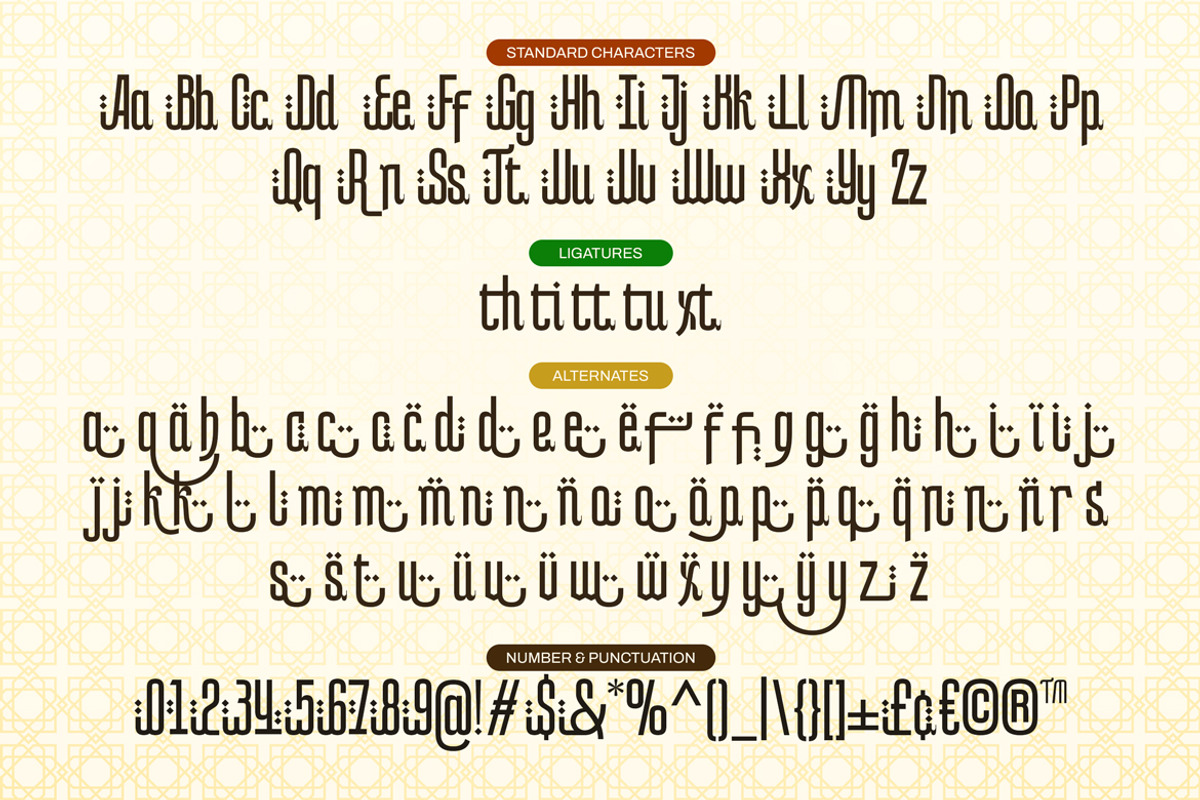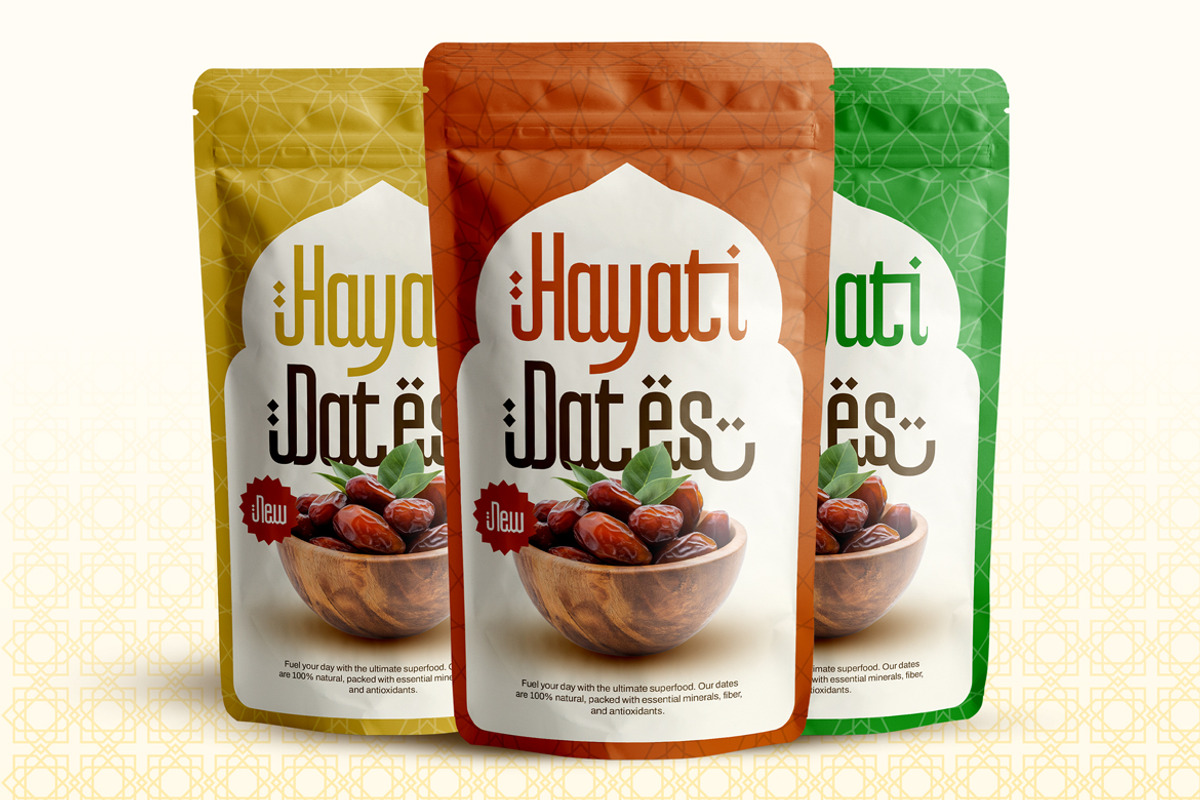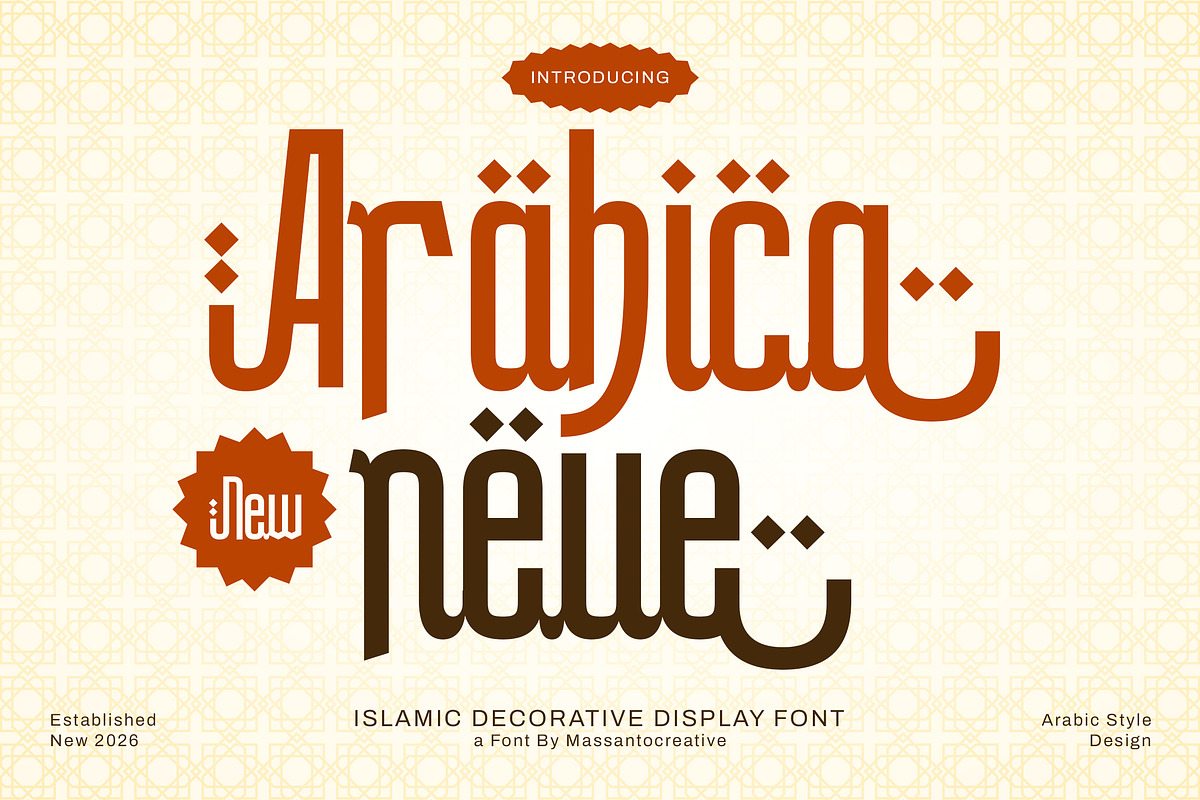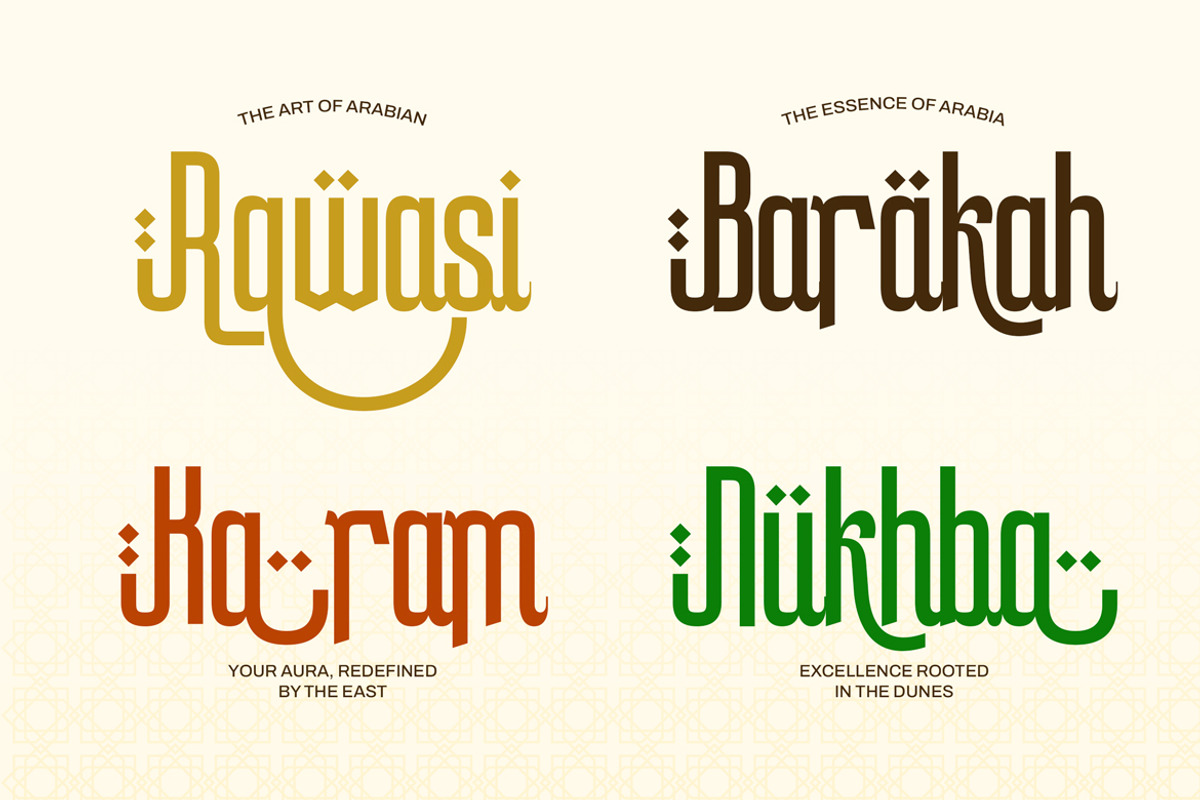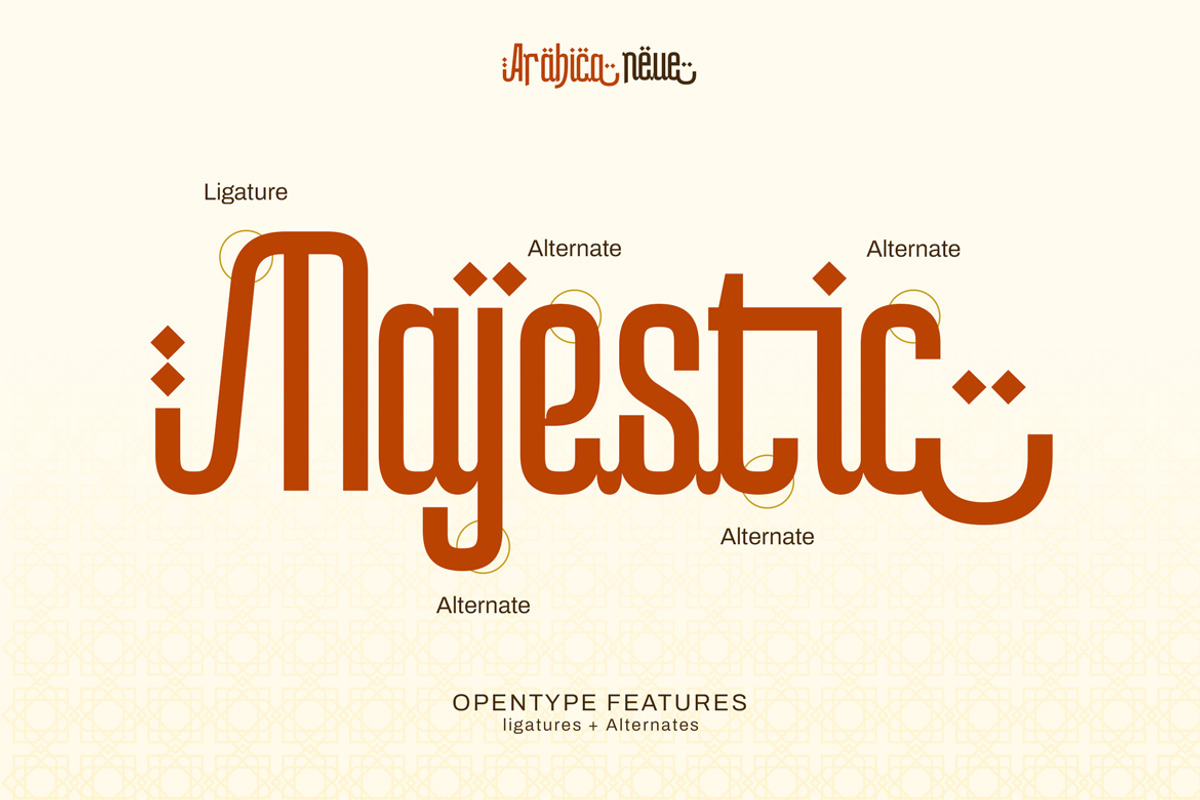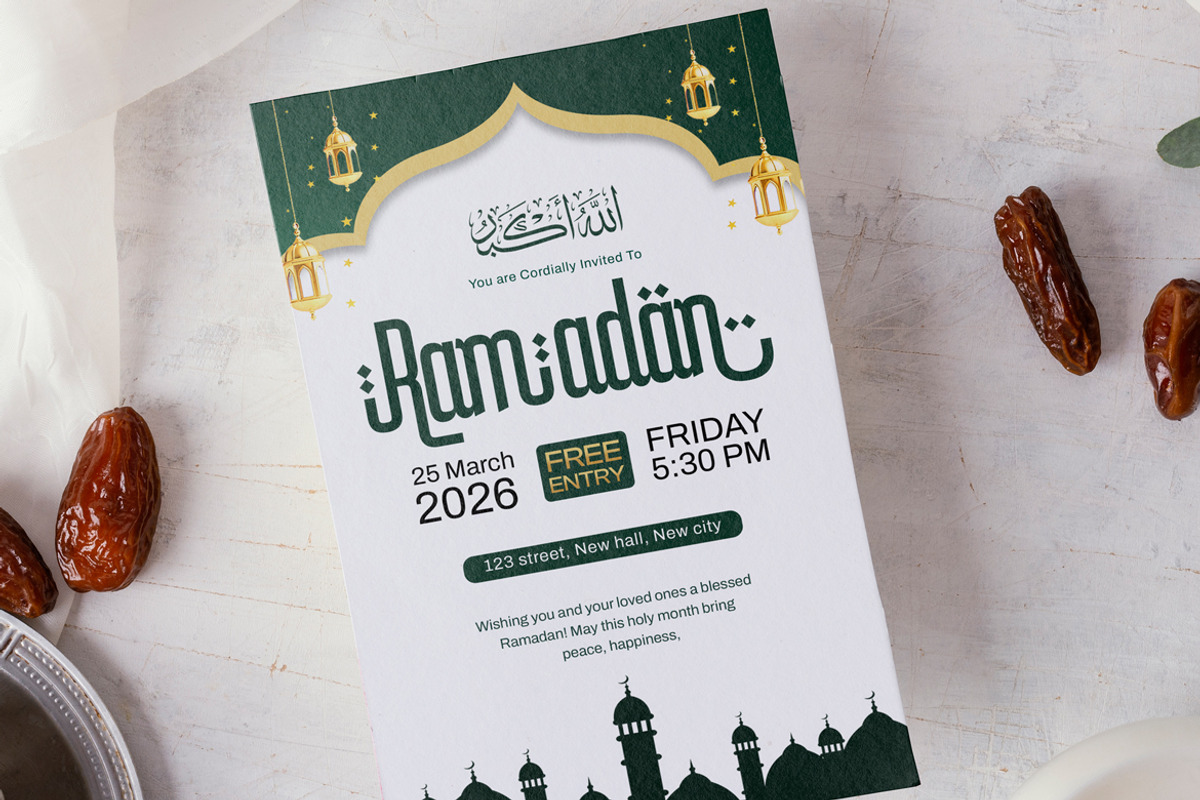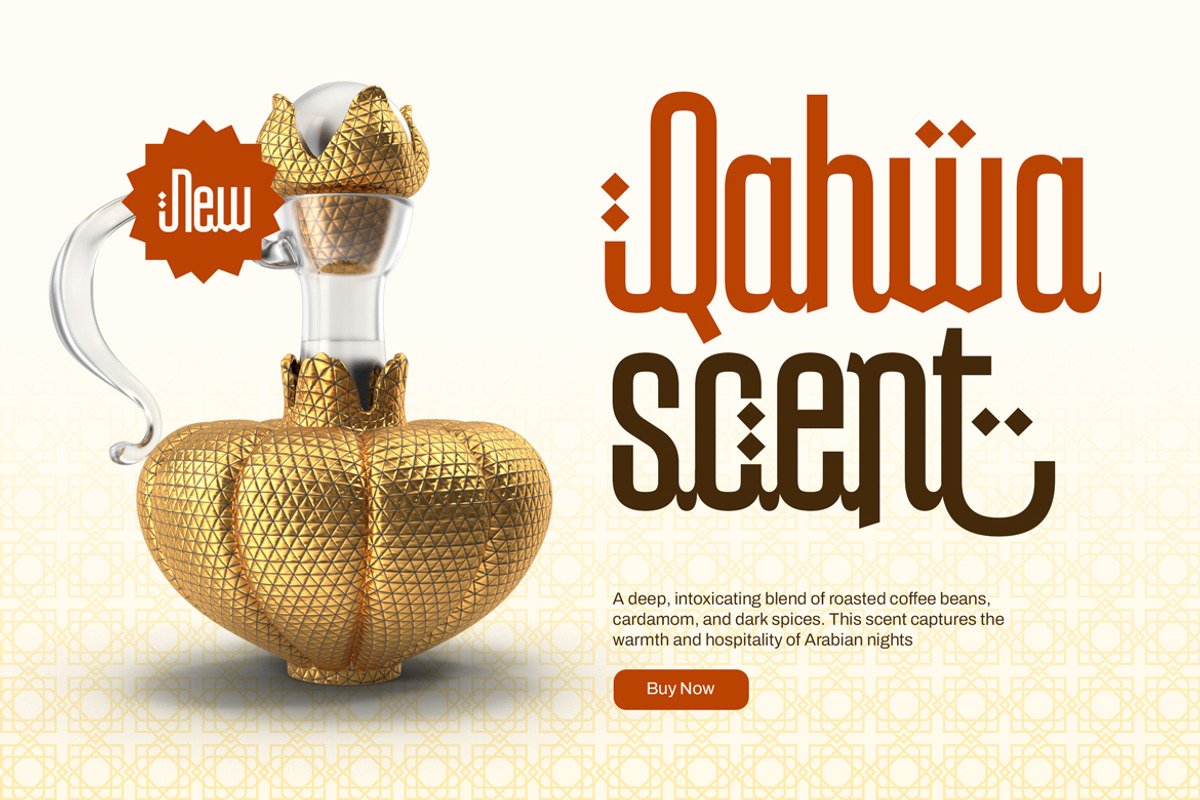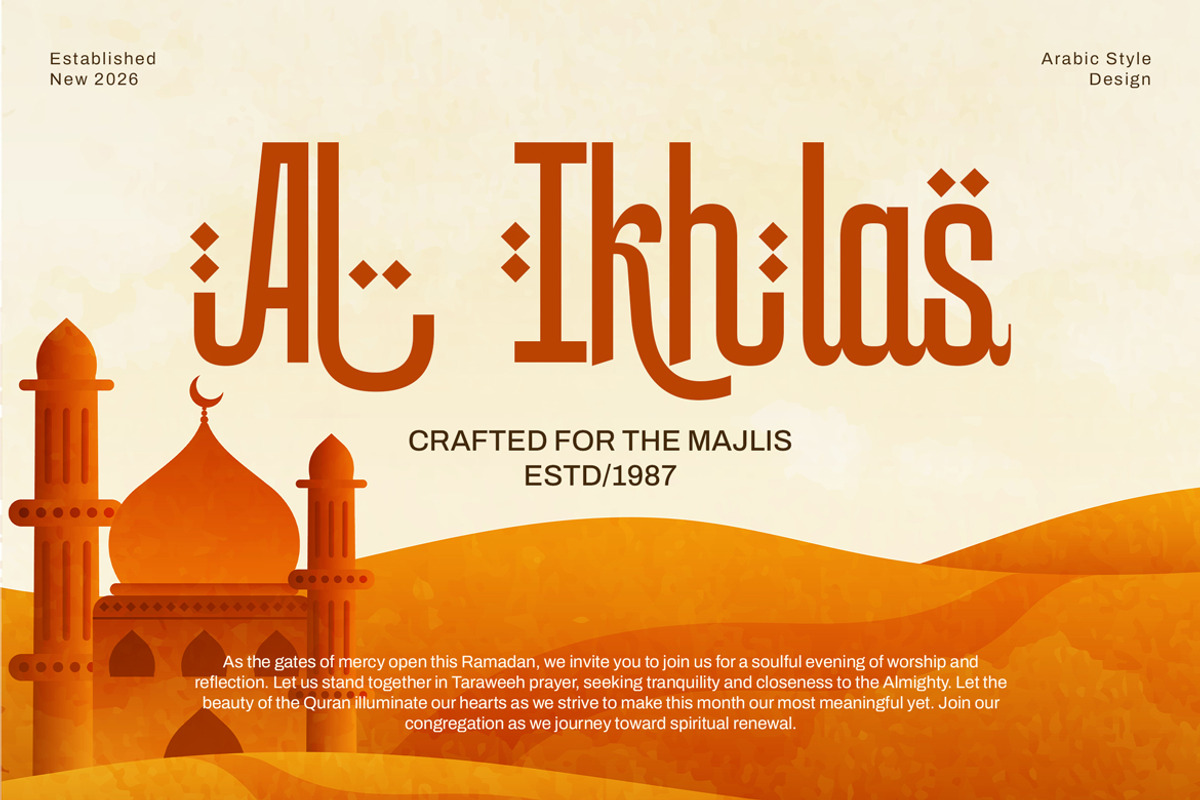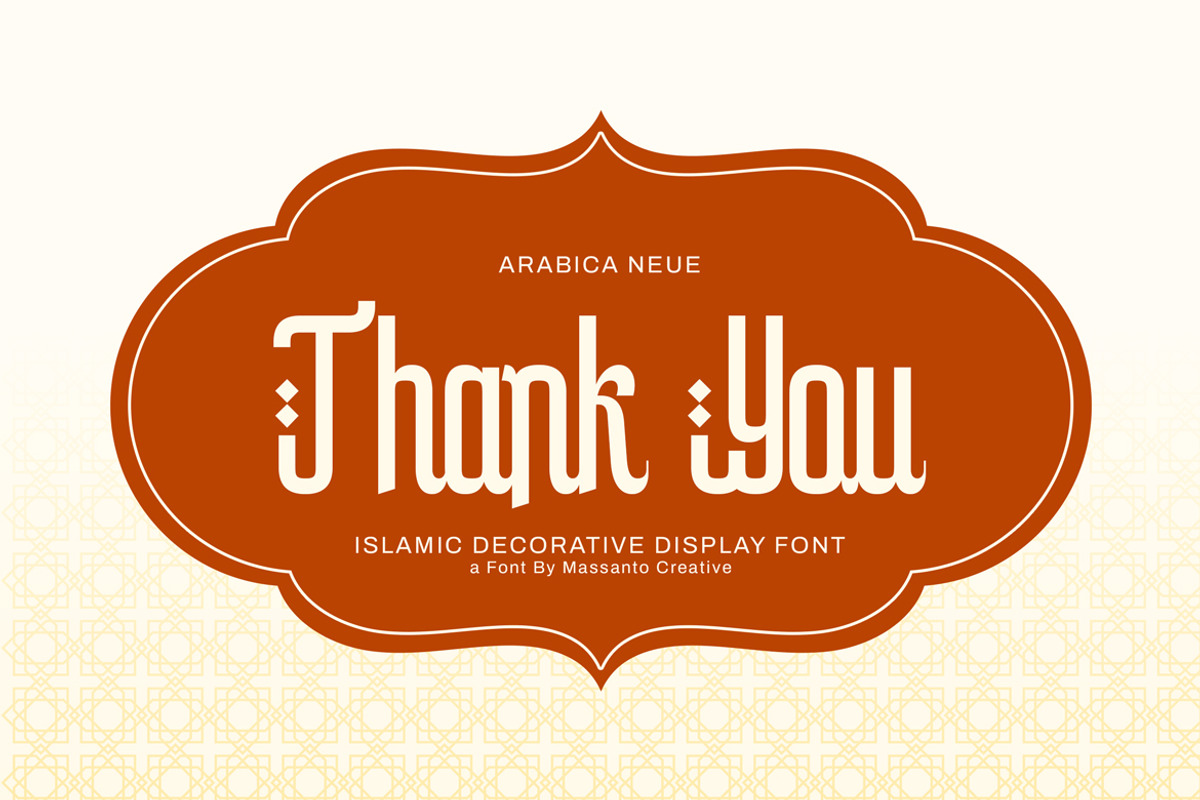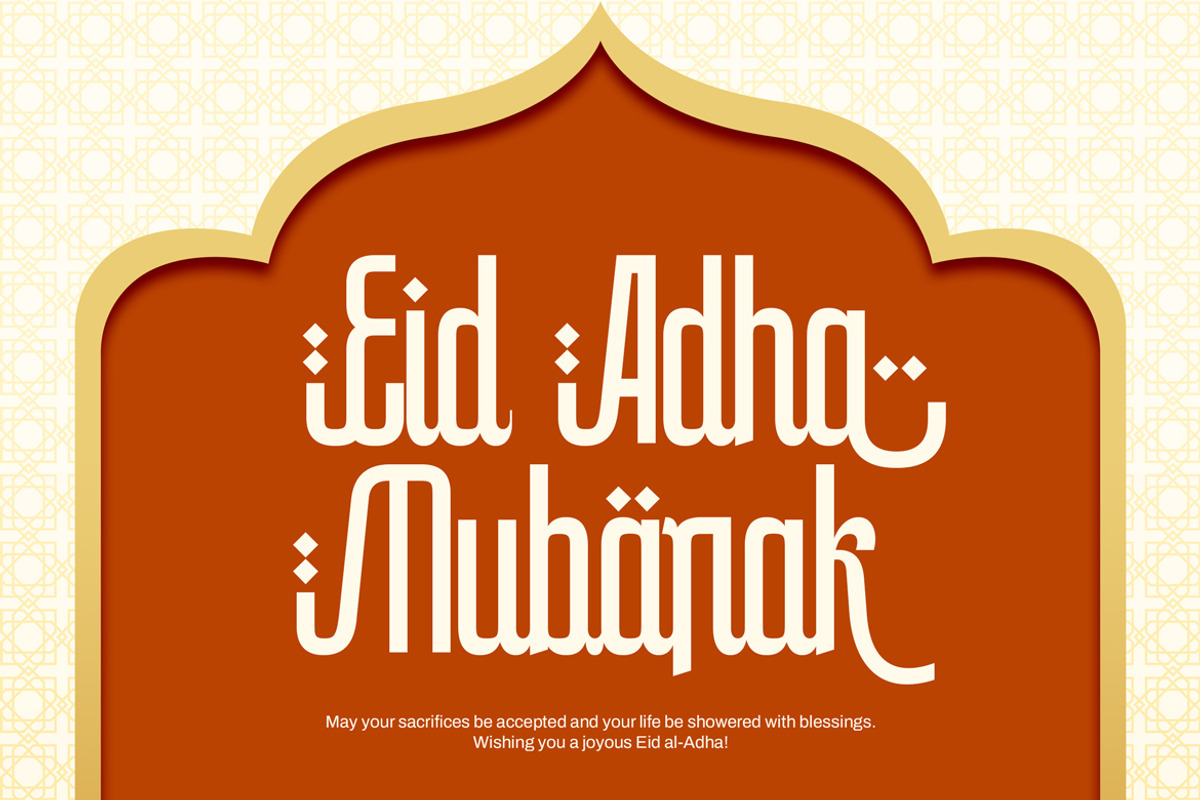
Arabica Neue Modern Islamic Arabic
Arabica Neue is a modern decorative display font inspired by Islamic and Arabic typography, designed to bring cultural richness, elegance, and contemporary clarity into one distinctive typeface. Combining traditional Middle Eastern letterform influences with a modern visual approach, Arabica Neue delivers a strong yet refined personality suitable for expressive and meaningful designs. Featuring smooth curves, balanced proportions, and unique Arabic-inspired details, Arabica Neue feels warm, elegant, and timeless. It is carefully crafted to remain readable while still offering a decorative character, making it ideal for both bold headlines and refined branding applications. Arabica Neue shines in projects that require an Islamic, Arabian, or cultural aesthetic, from festive designs to premium product branding. Whether used for Ramadan and Eid celebrations, luxury packaging, or modern Arabic-inspired visuals, this font adds authenticity and visual depth without overwhelming the composition. Perfect for designers seeking a typeface that blends tradition with modern elegance, Arabica Neue helps elevate designs with a distinctive cultural identity and professional finish.
- Ligature & alternate
- Numerals & punctuation
- Arabic-inspired decorative style
- Modern Islamic display character
- Clean and readable forms
Applications :
- Islamic & Arabic branding
- Ramadan & Eid designs
- Food, date, perfume & halal packaging
- Posters, invitations & greeting cards
- Editorial headlines & social media graphics